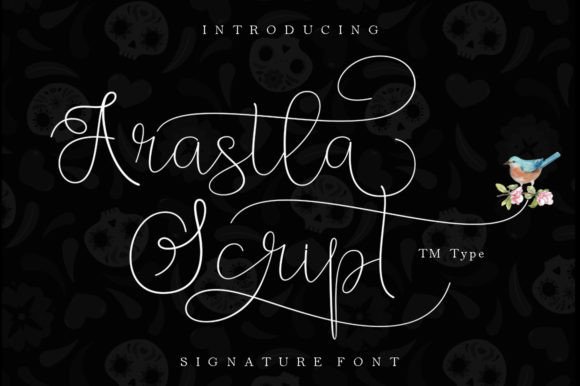
The Designer’s Delight: Arastla Script Font
I’ll never forget the time I was working on a branding project for a boutique client, and I just couldn’t find the perfect font to capture her unique style. She wanted something that was both elegant and playful, with a dash of personality. I scoured the internet, tried out dozens of fonts, but nothing seemed quite right. That was until I stumbled upon Arastla Script Font. ✨ It was like a breath of fresh air – stylish, unique, and easy to remember. In this article, I’ll share my love for Arastla Script, its features, and how to make the most of it in your designs.
• ✨ Unique and stylish: Arastla Script is a true showstopper, with its flowing lines and beautiful swashes.
• 🌟 Versatile: Use it for branding, photo overlays, watermarks, business cards, invitations, and more.
While Arastla Script is an amazing font, there are a few things to keep in mind: ⚠️
• 🤔 Some characters may require manual adjustments: Due to the script nature, certain character combinations might need tweaking for optimal spacing and readability.
The Story Behind Arastla Script
Arastla Script was designed with the intention of creating a unique, signature font that would help designers and crafters stand out. With its flowing lines and beautiful swashes, it’s no wonder it quickly gained popularity among creatives. While the designer’s story might be shrouded in mystery, one thing is clear: Arastla Script has become a beloved font in the design community.